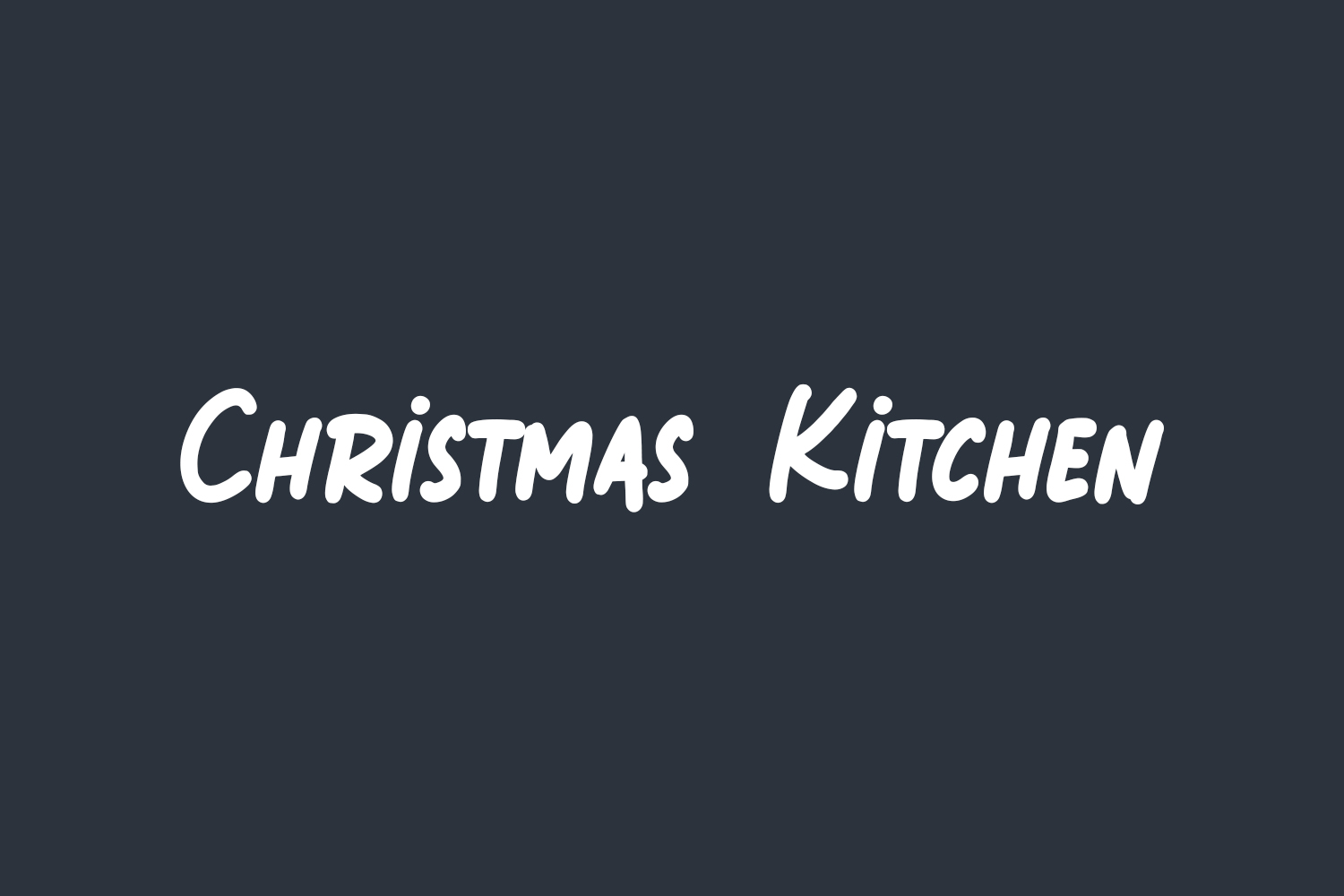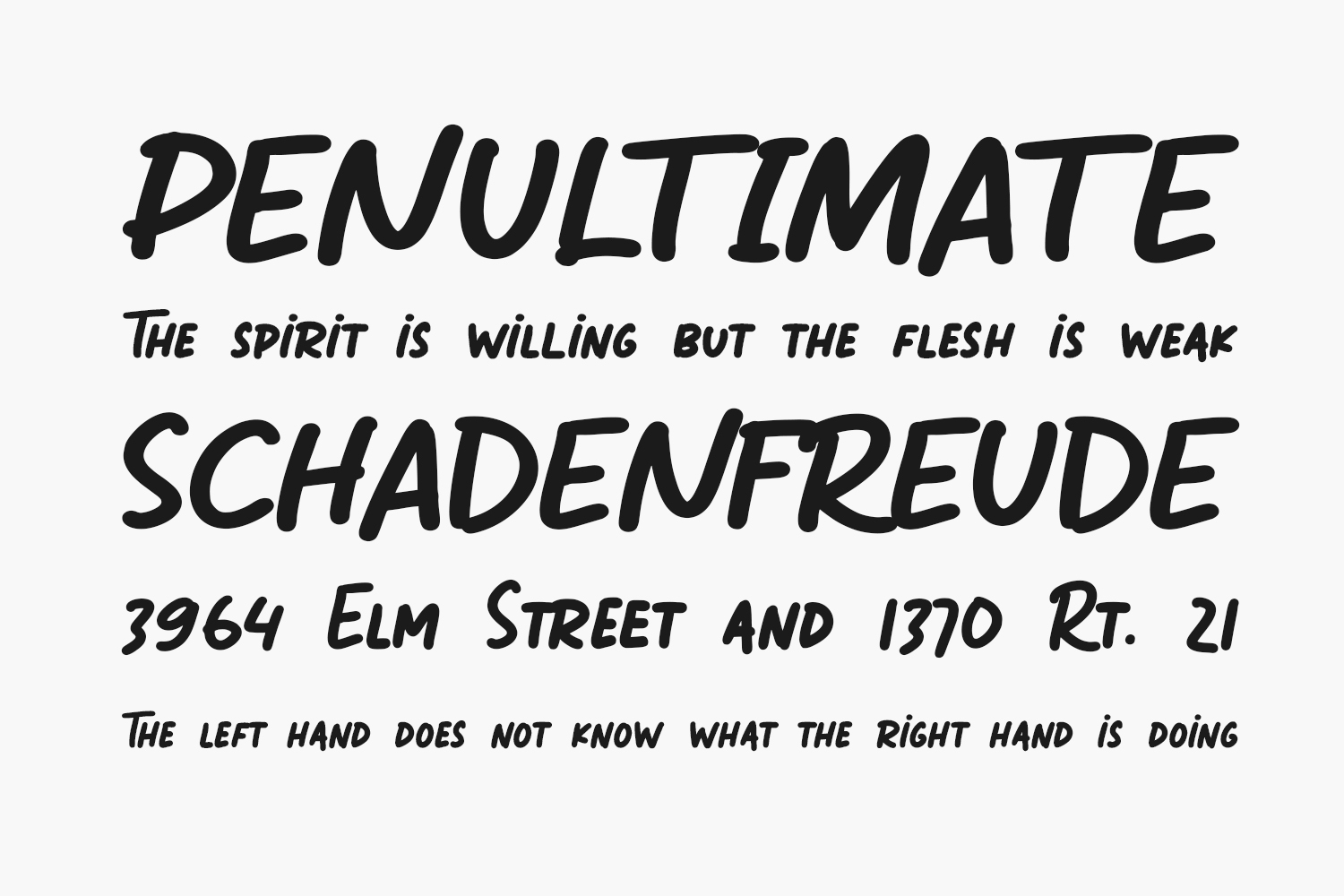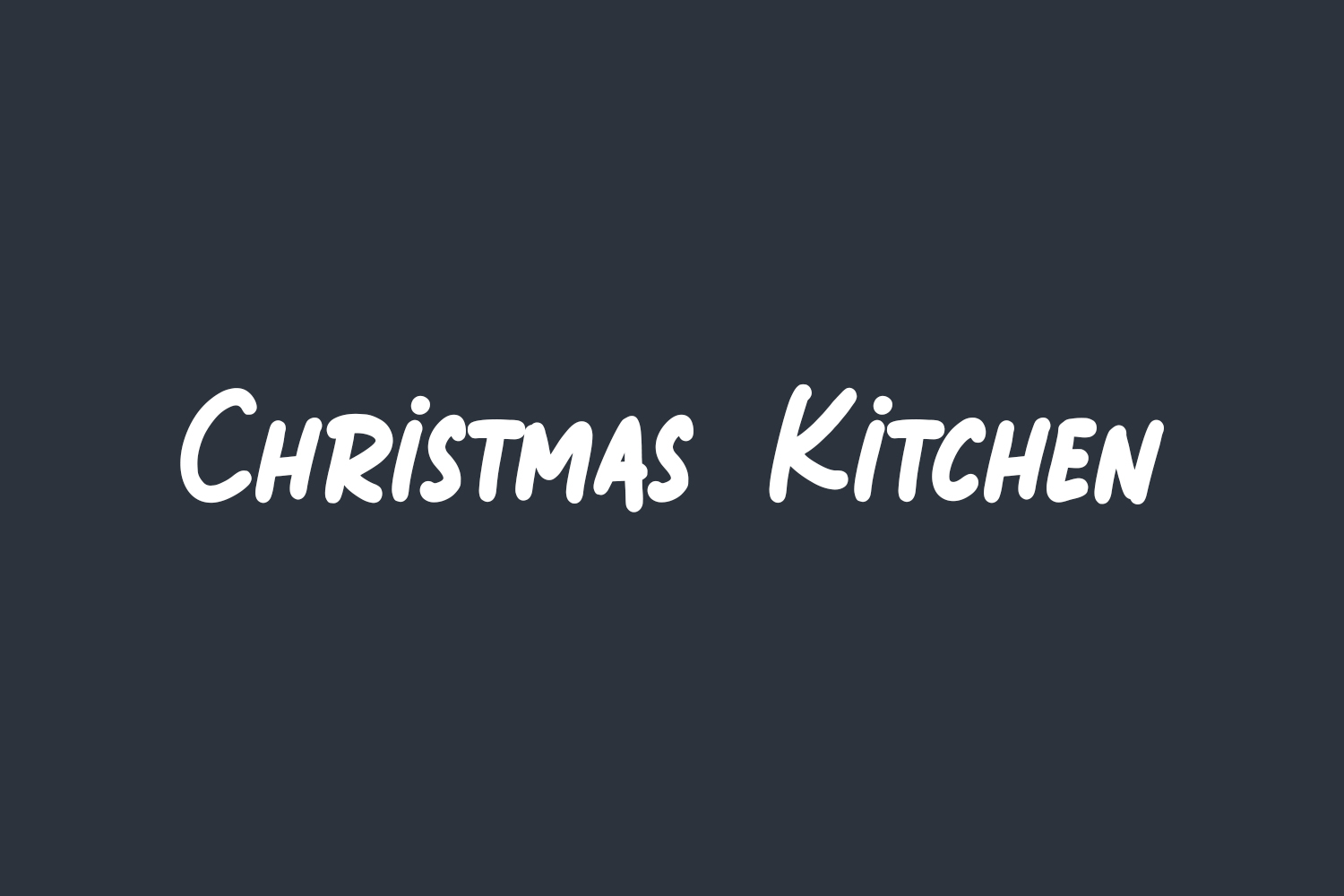
Christmas Kitchen Free Font is a warm and inviting script, written with a touch of nostalgia and a hint of holiday magic. Each letter flows effortlessly as if crafted by the loving hands of a dear friend. It evokes memories of holiday baking, family gatherings, and the simple joys of the season. Whether used for festive greeting cards or playful signs, this handwritten font brings a touch of heart and soul to every design.